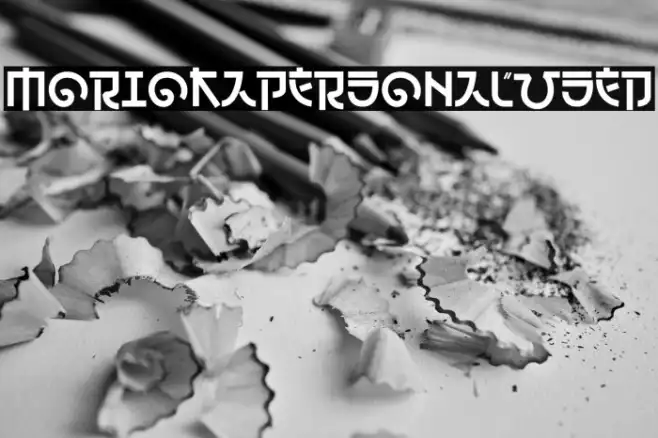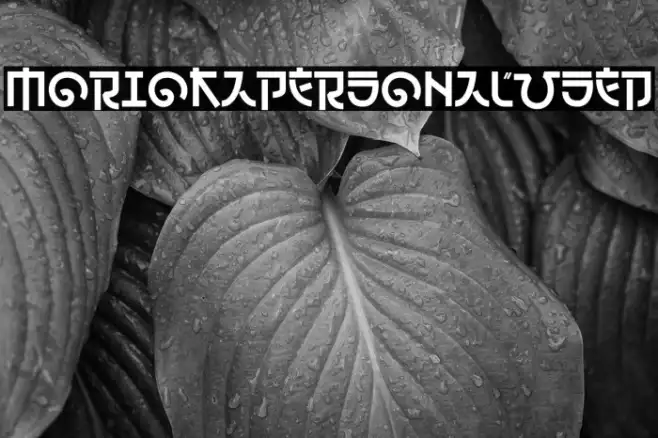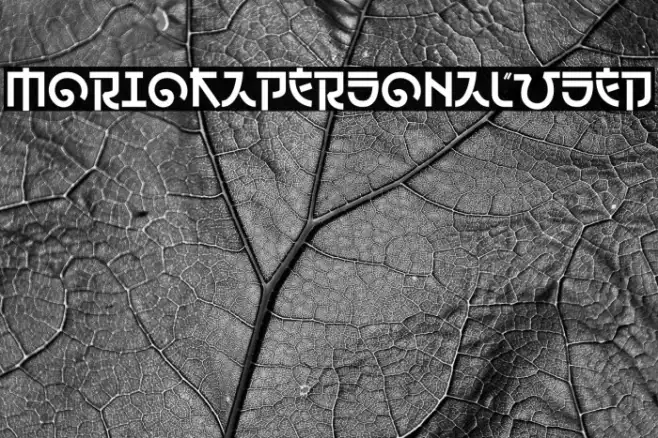
Morioka Personal Used Font
Morioka Personal Used Description
A bold, geometric, sans-serif font with a futuristic and tech-inspired style, characterized by sharp angles and uniform stroke widths.
| Overall Style | Modern, Futuristic, Geometric |
| Use Case | Headlines, Logos, Digital interfaces |